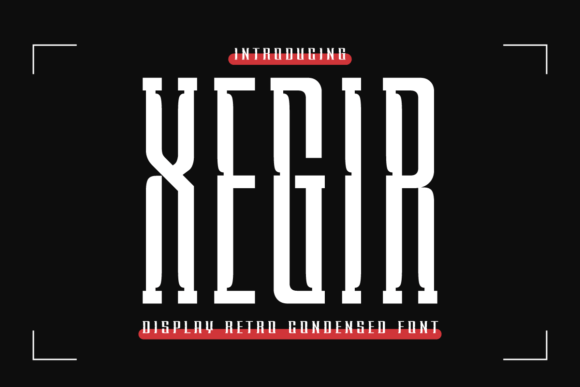
Introducing Xegir Font, the ultimate choice for captivating and powerful War Time posters. Created by twinletter, this font family is here to revolutionize your designs and leave a lasting impact on your audience.
With its retro condensed style, Xegir Font boasts a commanding presence that instantly grabs attention. Its tall and dense shapes, coupled with a geometric aesthetic, exude strength and solidity. Whether you're creating titles, typography, magazines, brochures, or packaging, this font is the perfect companion to elevate your design game.
Xegir Font offers two distinct styles: slab and sans. The slab variant adds a touch of vintage charm, while the sans variant brings a modern twist. This versatility ensures that you have the flexibility to create diverse and eye-catching visuals that suit your unique style and project requirements.
When you choose Xegir Font, you're choosing professionalism and sophistication. Its seamless integration into your designs seamlessly enhances their modern appeal, making them stand out from the crowd. The font's strong and solid typeface conveys a sense of authority and reliability, instilling confidence in your audience.
But that's not all. Xegir Font goes beyond aesthetics. It's designed to evoke emotions and captivate your target audience. Its impactful presence and elegant curves speak volumes, creating a memorable visual experience. Whether you're designing for a historical event, a movie poster, or a themed campaign, Xegir Font will transport your audience to a different era, leaving them craving for more.